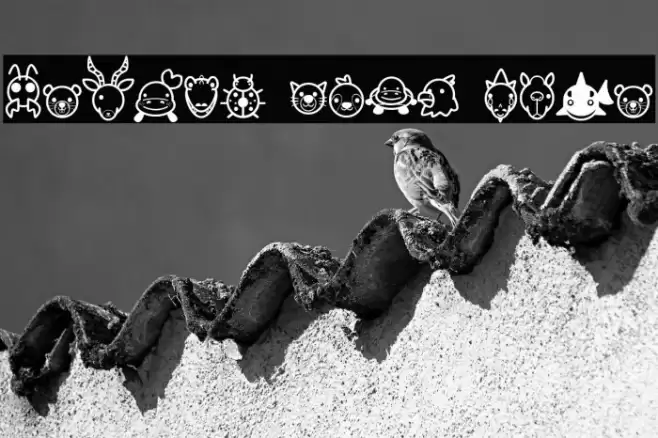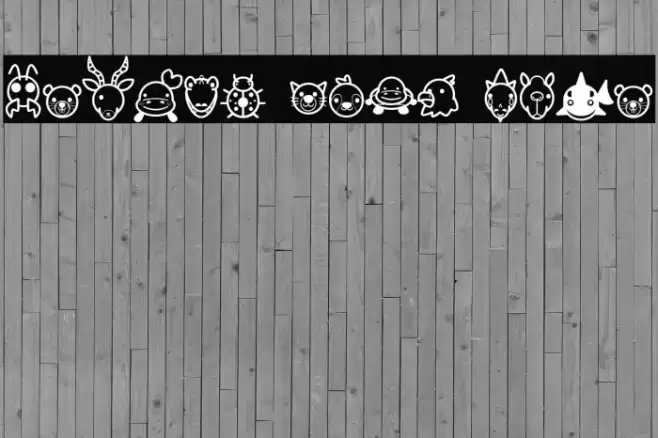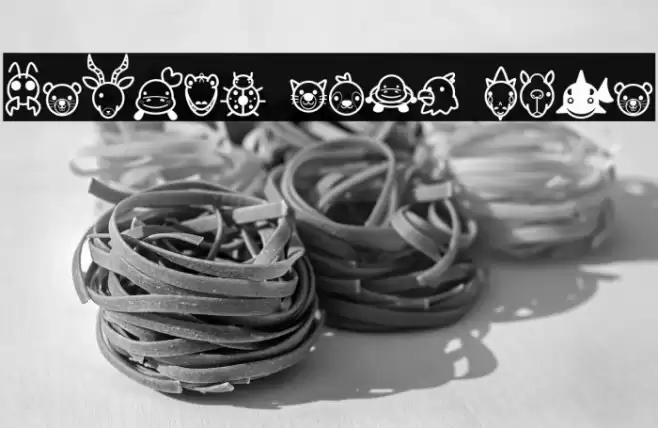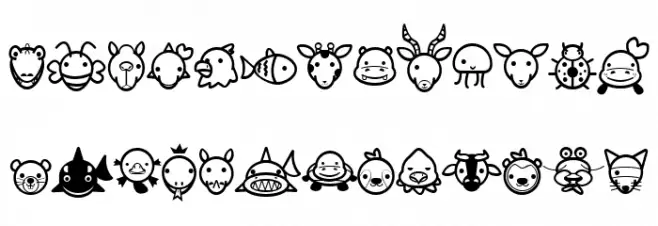
Animal Cute Icon Font
Animal Cute Icon Description
A playful, hand-drawn icon set featuring a variety of cute animal faces and whimsical creatures, each with bold outlines and simple, rounded shapes. The icons are highly stylized and cartoonish, emphasizing expressive eyes and minimal detail for a charming, approachable look.
Cute, hand-drawn animal icon set with bold outlines and playful style from Dingbats fonts.
- Proposed Projects: Children's books, educational materials, stickers, greeting cards, apps for kids, branding for pet or animal-related businesses.
- Contrast: High
- Overall Style: Decorative, Playful, Cute
- Use Case: Icons, Decorative elements, Branding, Educational materials